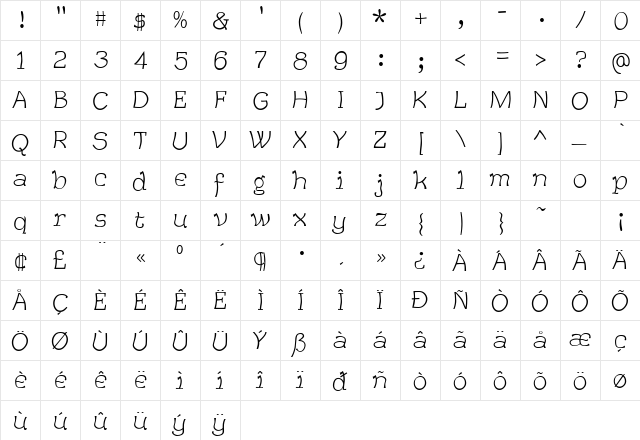
DrivEddie Regular Font Preview
DrivEddie Regular
Design Context for DrivEddie Typeface
DrivEddie is a composed and adaptable typeface that performs quietly and consistently across a wide range of design contexts.